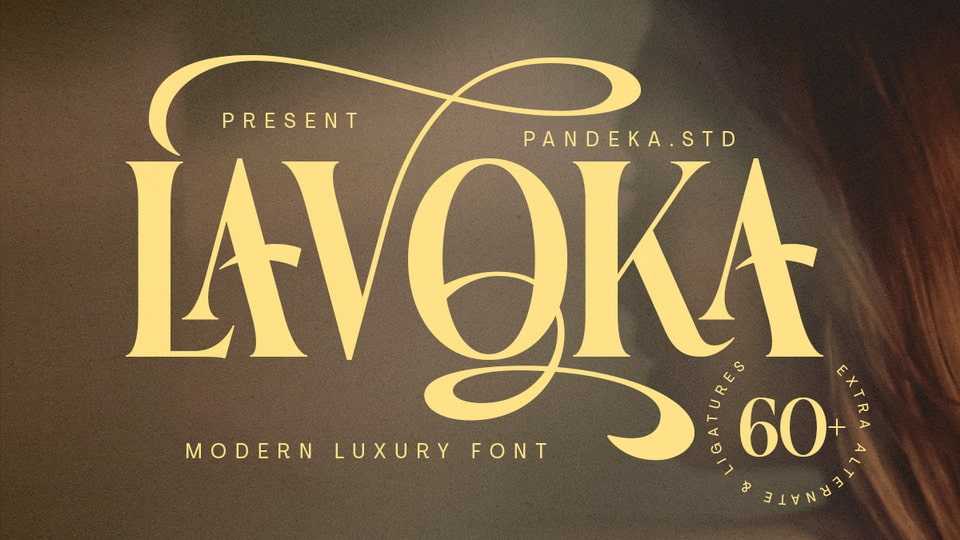
Download Lavoka font, a modern and elegant serif typeface with refined proportions and chic lettering make it ideal for luxury branding, editorial layouts, premium packaging.